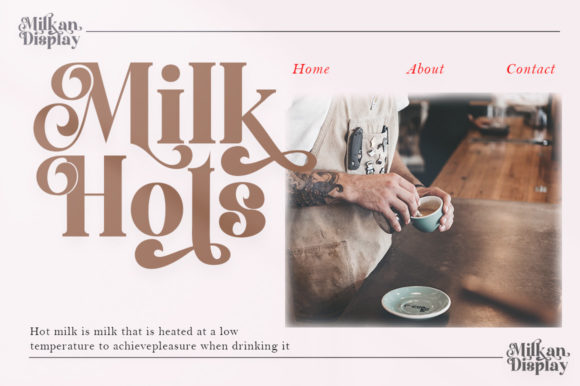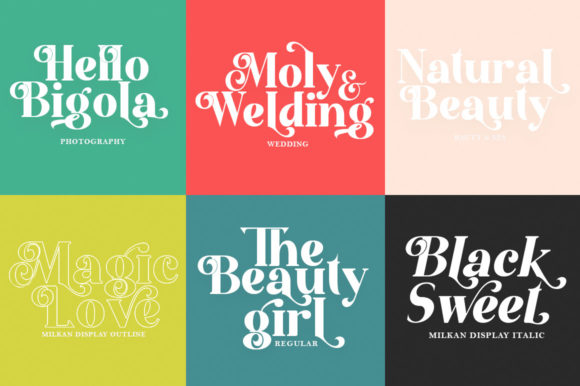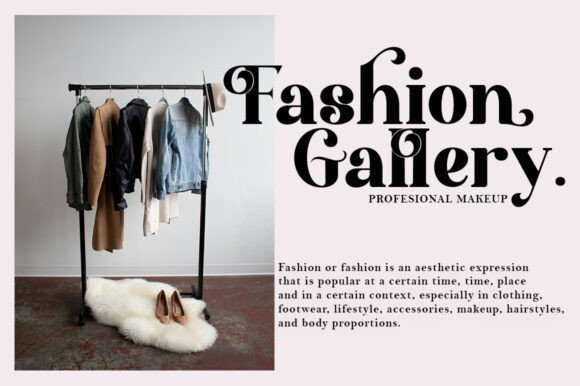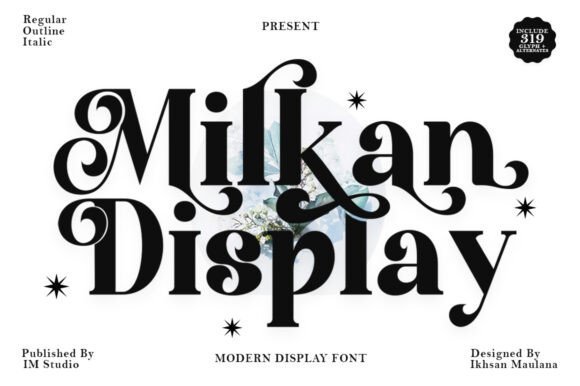
Introduction to Milkan Display Font
Milkan is a cool and bold thick lettered display font.
It looks stunning on wedding invitations, thank you cards, quotes, greeting cards, logos, business cards and every other design which needs a trendy touch .